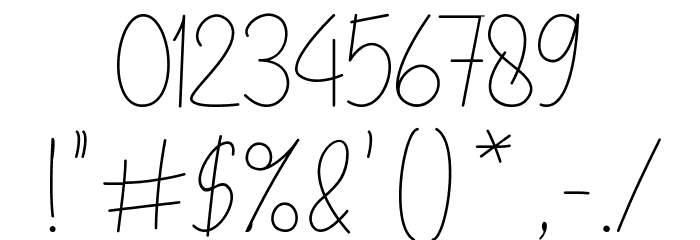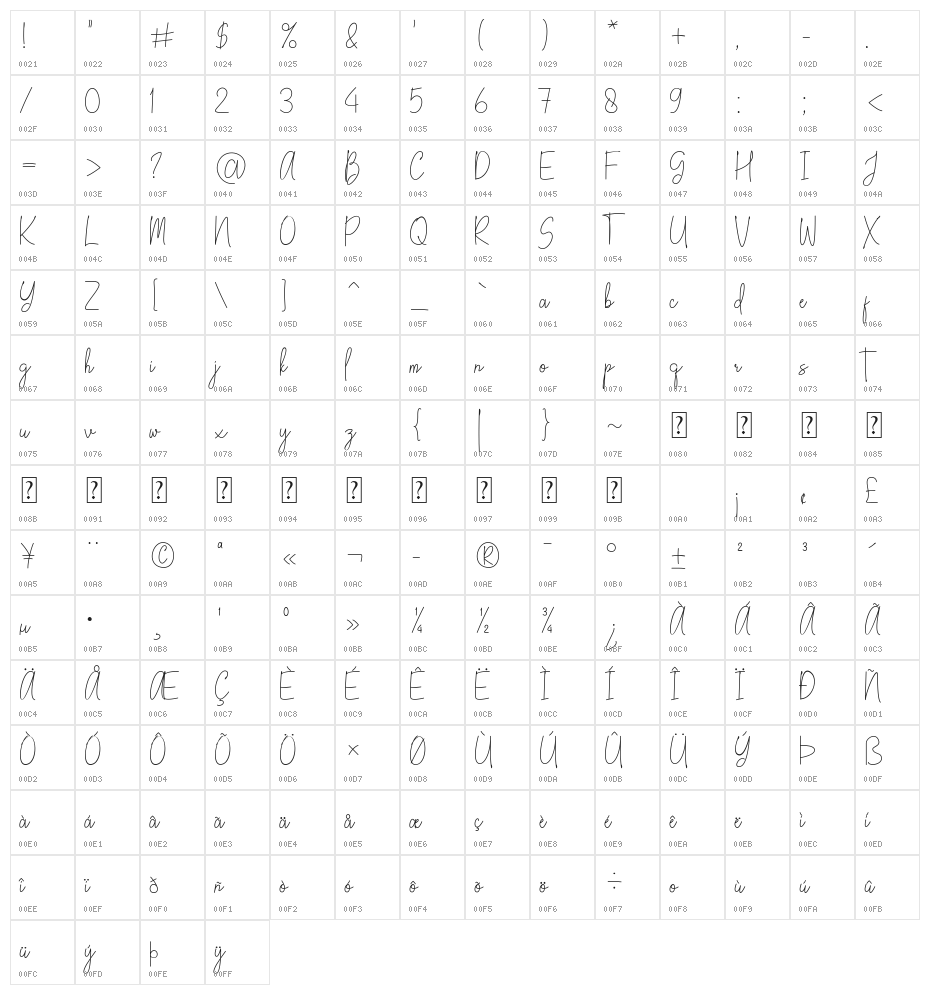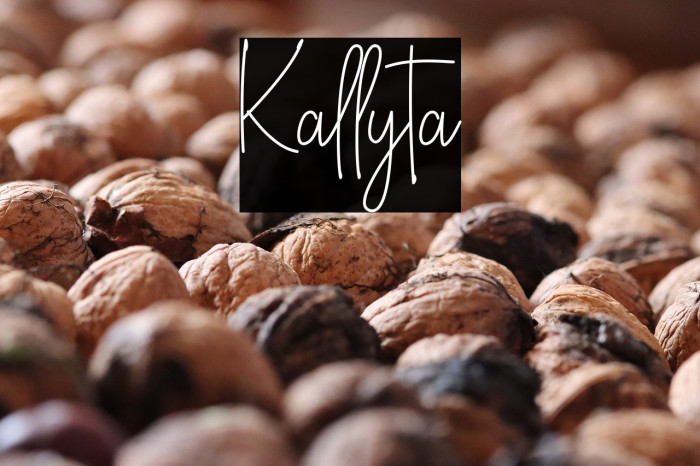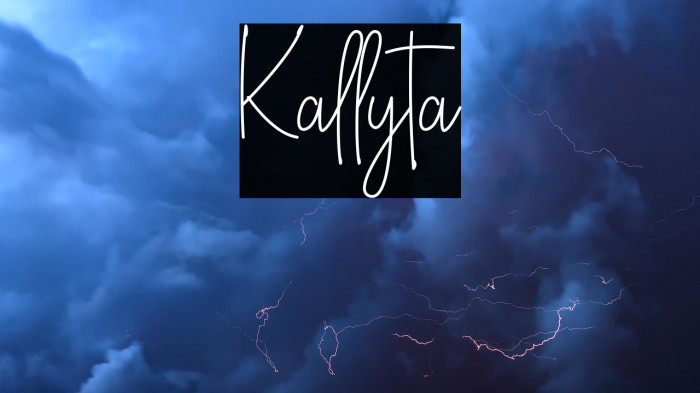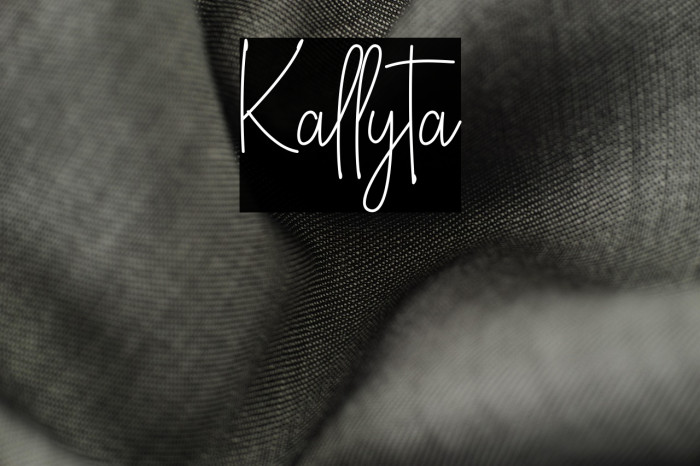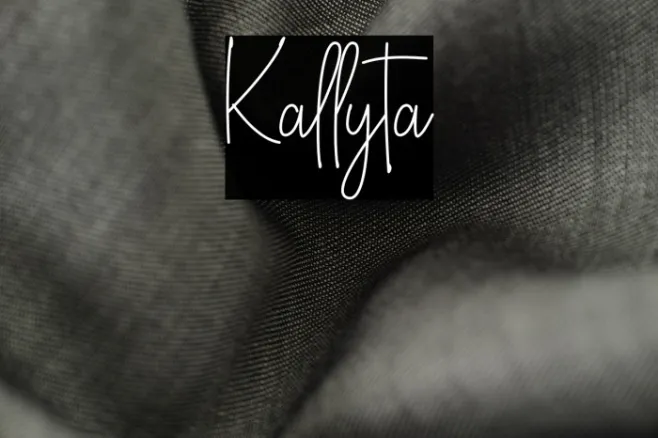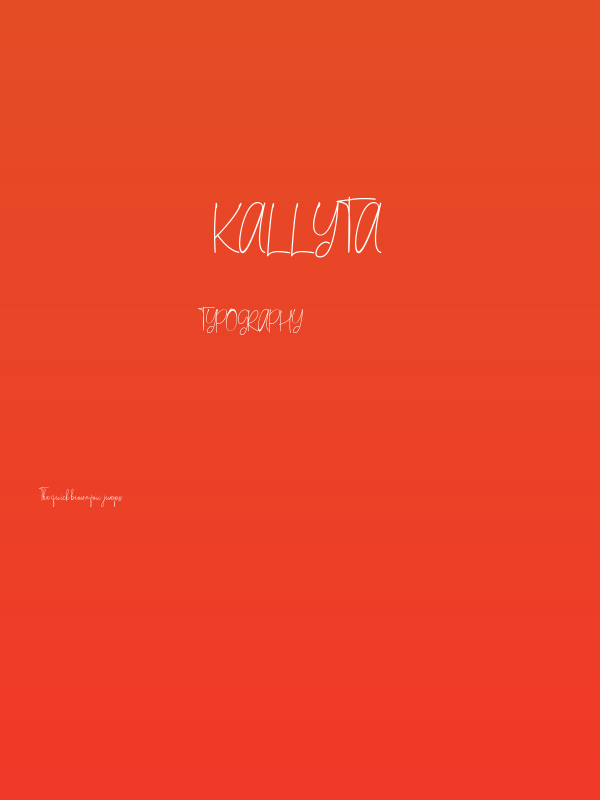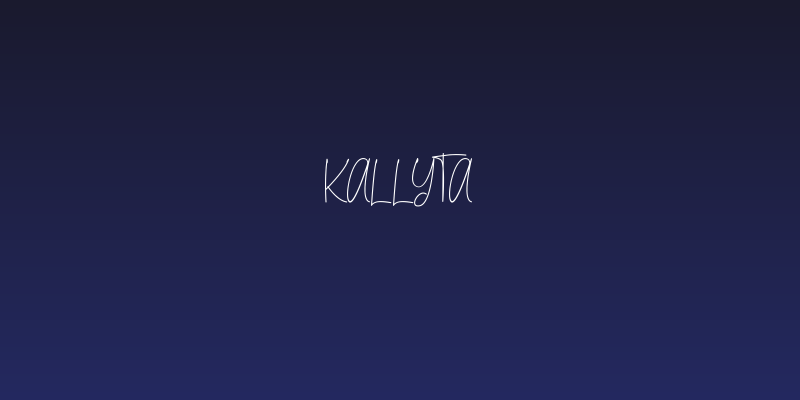
Kallyta Font
Kallyta Description
This font features a playful and whimsical handwritten style, characterized by its tall, narrow letters and flowing curves. The uppercase letters are distinct with elongated vertical strokes, while the lowercase letters maintain a consistent, fluid motion, giving the font a lively and dynamic appearance. The numerals are similarly styled, with a uniform height and a slight slant that adds to the overall casual feel. Special characters are integrated seamlessly, maintaining the font's cohesive look. This font is ideal for projects that require a personal touch, such as invitations, greeting cards, or branding materials that aim to convey warmth and approachability.
Overall StyleCasual, Playful
Use CaseHeadlines, Logos, Invitations
Proposed ProjectsIdeal for invitations, greeting cards, personal branding, and creative projects.